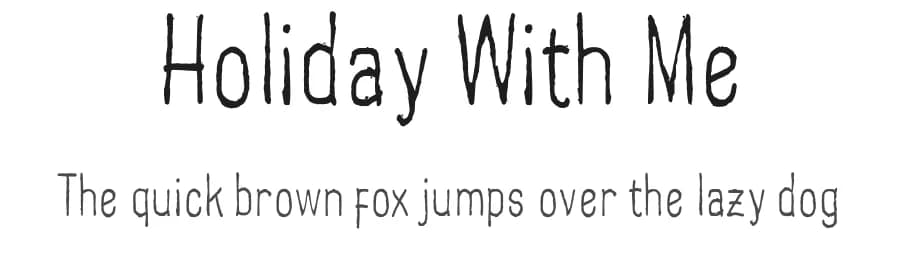
About Holiday With Me Font
Holiday With Me is a script & handwritten font designed by Muhadi. It includes 217 glyphs, a medium weight, TTF (TrueType) format, and 214 languages. Holiday With Me is free to download; check the license details on this page before commercial use. Script & handwritten fonts like Holiday With Me work best for wedding invitations, greeting cards, signatures, and elegant branding.
Holiday With Me Font is a script font that shines as a display or heading face. Pair it with a clean sans-serif or serif font for body text β the contrast creates a clear hierarchy while the two styles stay balanced and easy to read.
Holiday With Me Font
Holiday With Me Font is a script handwritten typeface by Muhadi, ideal for logos, invitations, branding, and creative projects.